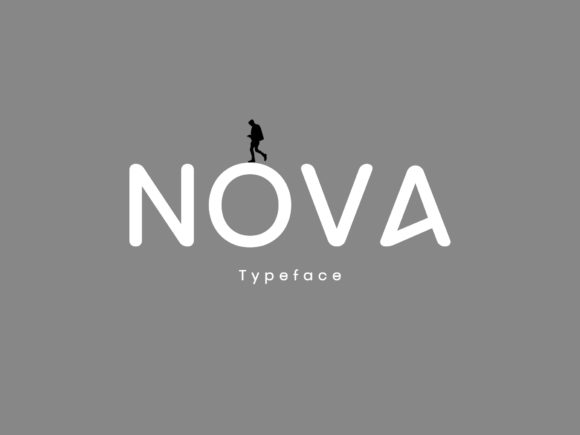
Welcome to the world of Nova Font, a sans serif font family that will redefine your design horizons. With its clean, crisp lines and minimalistic elegance, Nova Font is the perfect choice for those seeking a font that exudes professionalism and sophistication.
Designed by the creative minds at Design Stag, Nova Font boasts a wide range of weights and styles, allowing you to adapt it seamlessly to any project, from logos and branding to website design and marketing materials. Its versatility is truly remarkable, making it a font that can effortlessly elevate the impact of your creative endeavors.
Dive into the world of Nova Font and immerse yourself in its captivating charm. Experience the joy of designing with a font that speaks volumes without uttering a single word. Its minimalist design allows your content to shine, while its subtle elegance adds a touch of refinement to your projects.
With Nova Font, you'll discover a font that not only meets your design needs but also captivates your audience. Its clean lines and legible characters ensure that your message is conveyed with clarity and precision, leaving a lasting impression on your readers.
Unlock the potential of Nova Font today and embark on a design journey that will leave you spellbound. Let your creativity soar as you witness the transformative power of a font that is both aesthetically pleasing and functionally brilliant.